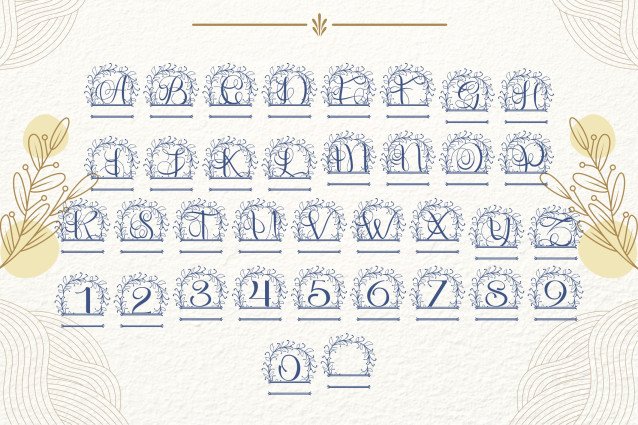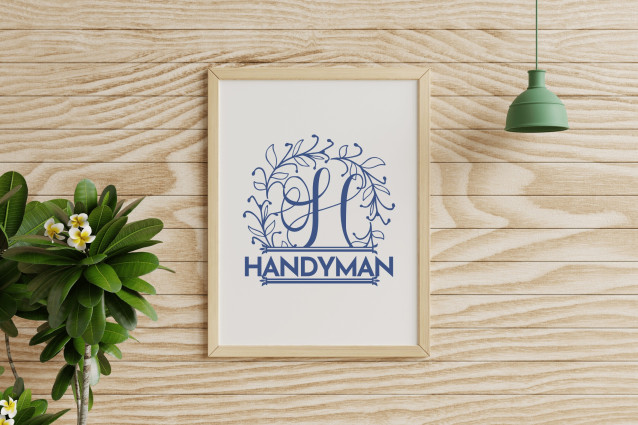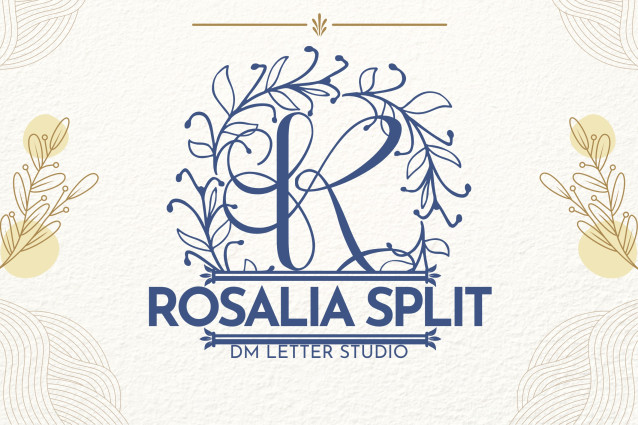
Rosalia Wreath Split Font
Rosalia Wreath Split Monogram combines timeless serif elegance with romantic floral charm. Each uppercase letter is gracefully framed by a soft botanical wreath, featuring a central horizontal split ideal for personalizing with names or words. It’s a perfect fit for wedding decor, customized gifts, Cricut projects, and seasonal crafts.